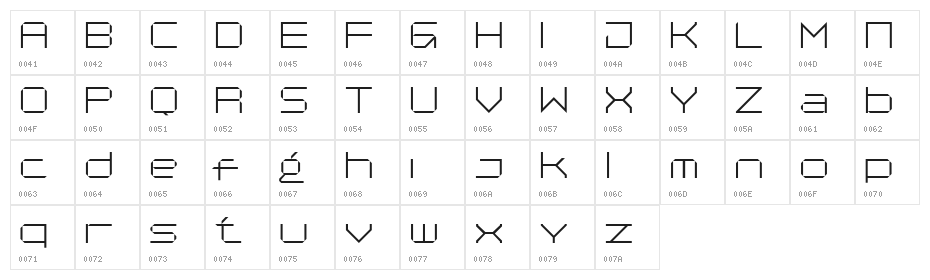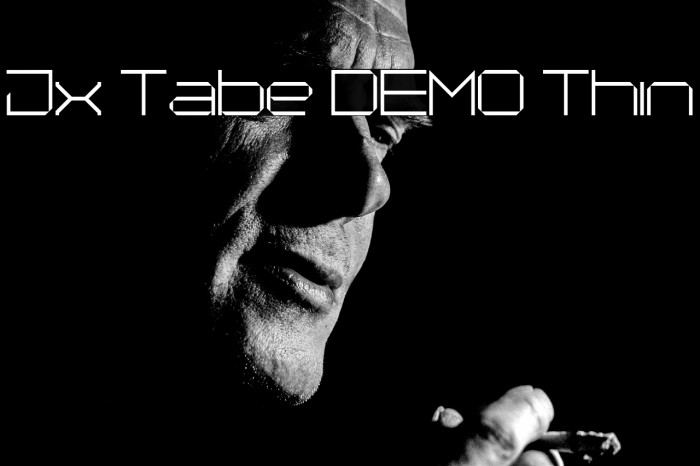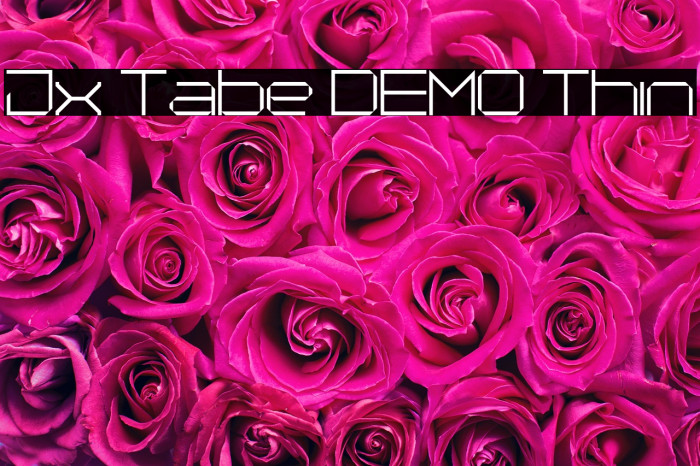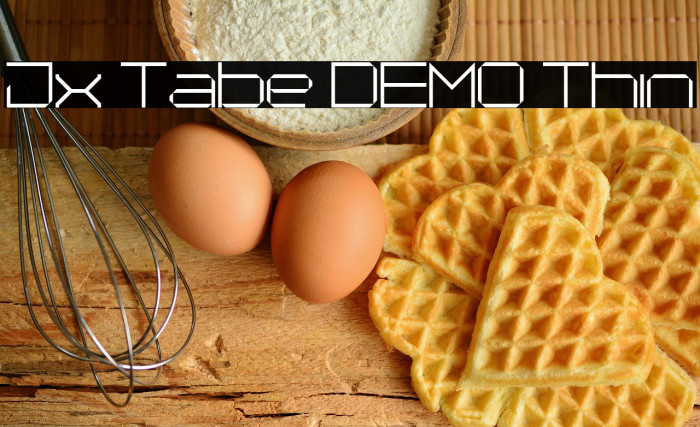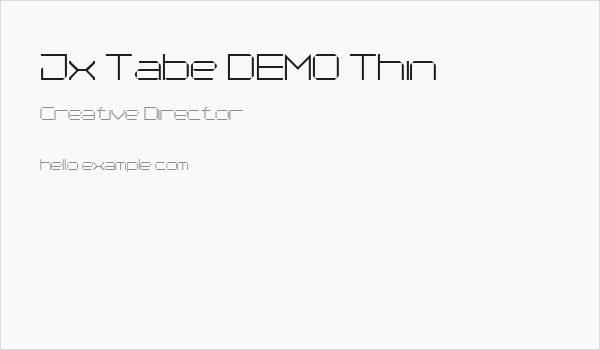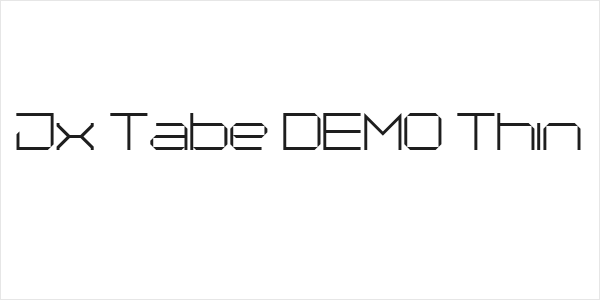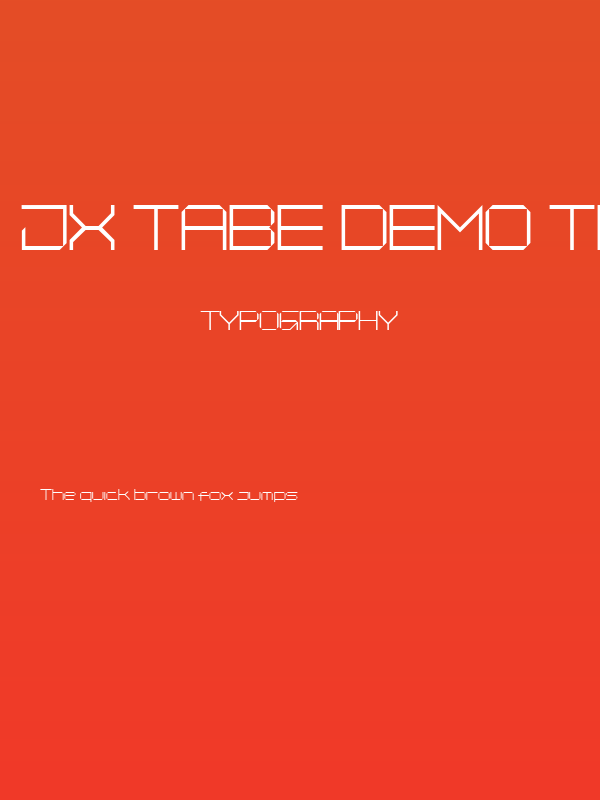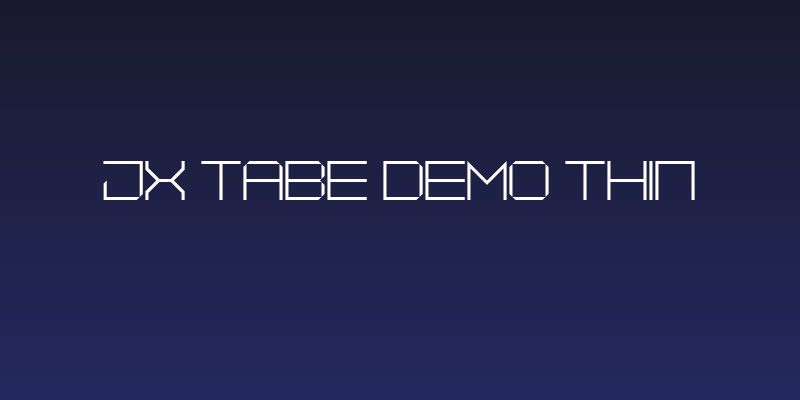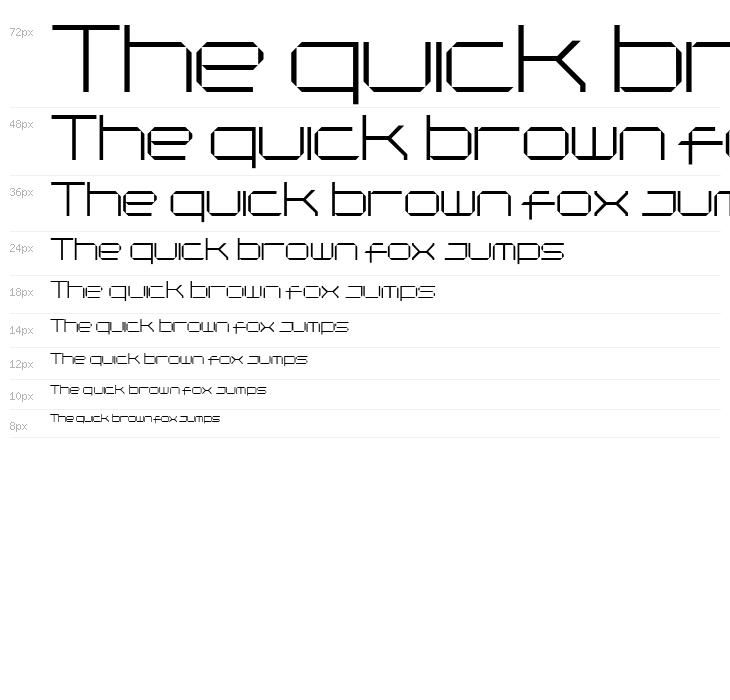
Jx Tabe DEMO Thin Font
Jx Tabe DEMO Thin Description
This font features a geometric and futuristic design with a distinct digital aesthetic. The characters are constructed with sharp angles and straight lines, creating a sense of precision and modernity. The uppercase and lowercase letters maintain a consistent style, emphasizing uniformity and balance. The font's thin strokes contribute to a sleek and minimal appearance, making it suitable for contemporary design projects. Its unique structure is reminiscent of digital displays or technical schematics, offering a high-tech vibe. The spacing between characters is tight, enhancing the compact and efficient look of the text.
| Proposed Projects | Ideal for technology branding, digital interfaces, sci-fi posters, and modern art projects. |